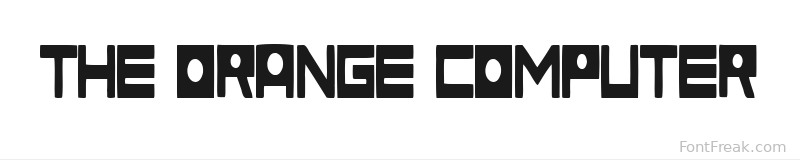
The Orange Computer
The Orange Computer font by woodcutter Manero is an engaging display typeface that captures attention with its playful yet modern aesthetic. This sans-serif font features a unique geometric design, characterized by its bold stroke weight and a consistent, rounded appearance. The letterforms are spaciously arranged, enhancing readability while maintaining a sense of whimsy. The rounded terminals and quirky details in the characters contribute to a distinctive personality, making it suitable for a variety of creative applications.
This font shines in several specific use cases. It is perfect for tech-themed event posters, where its modern vibe can draw in an audience. Additionally, The Orange Computer works well for children's book titles, thanks to its friendly and approachable design. Small business owners can utilize this font for branding materials, such as logos and promotional flyers, giving their visual identity a contemporary edge. It also makes an excellent choice for social media graphics aimed at younger demographics, where eye-catching typography is essential. Content creators will find it beneficial for YouTube thumbnails and website headers, allowing them to stand out in a crowded digital space.
In summary, The Orange Computer stands out due to its distinctive blend of modern design and playful elements. Its versatility across various applications makes it a valuable addition to any typographic toolkit, ensuring that your projects remain fresh and visually appealing.